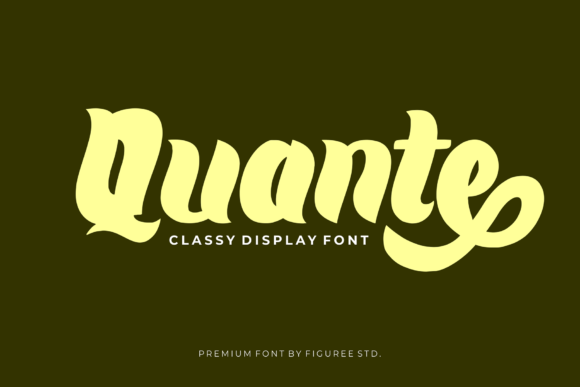
Step into the dynamic realm of typography with Quante Font, a captivating display font designed to leave a lasting impression on your creative endeavors. This meticulously crafted font exudes boldness and classic elegance, transforming your ideas into captivating realities. Prepare to witness the magic unfold as you integrate Quante into your projects.
With Quante as your artistic companion, you'll discover a font that speaks volumes. Its unwavering strength and timeless appeal lend an air of sophistication to any design, whether you're crafting eye-catching headlines, alluring logos, or engaging marketing materials. Let Quante's bold strokes command attention and leave an indelible mark on your audience's minds.
Quante's versatility extends beyond its classic charm. It's a font that effortlessly adapts to a myriad of creative visions. Envision the impact it will have on your online magazine, where its distinctive presence will draw readers in and keep them captivated throughout their journey through your captivating content. Quante's ability to elevate your words and visuals is truly remarkable.
But Quante's allure doesn't end there. It's a font that embraces innovation. Its PUA encoding opens up a world of possibilities, granting you effortless access to a treasure trove of glyphs and swashes. Unleash your creativity and explore the endless design combinations that await, making each project a testament to your artistic prowess.
Quante Font, a masterpiece from Figuree Studio, isn't just another font; it's an artistic gateway that invites you to transcend the boundaries of creativity. Its bold strokes and timeless elegance will ignite your imagination and empower you to create designs that resonate with your audience. Embrace the transformative power of Quante and witness the birth of truly extraordinary visual experiences.